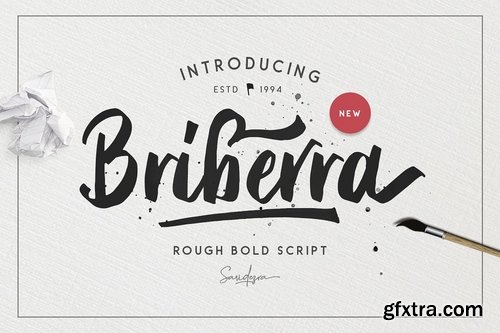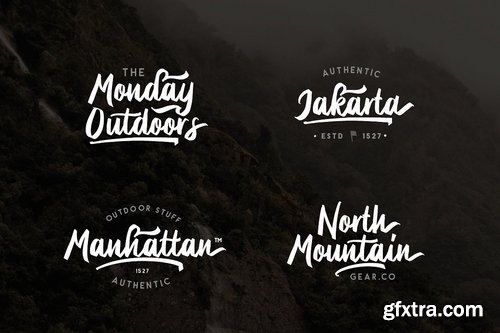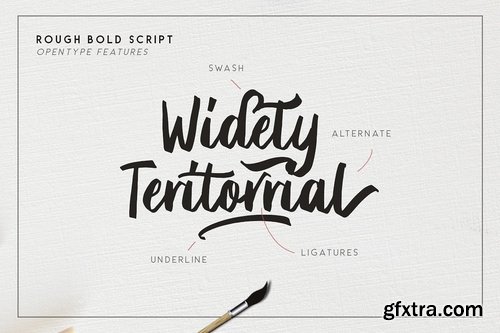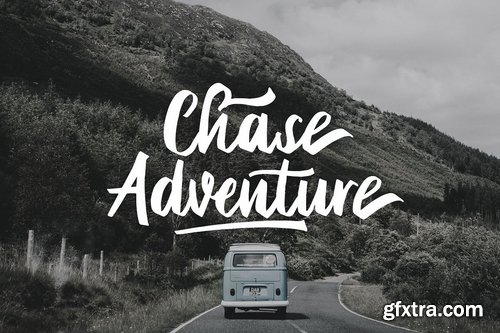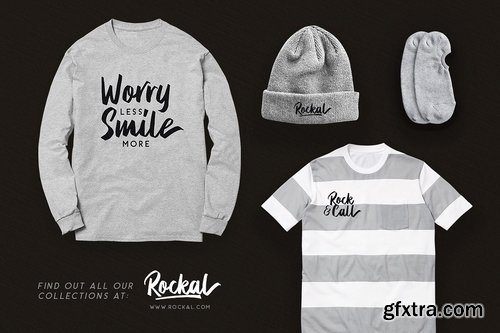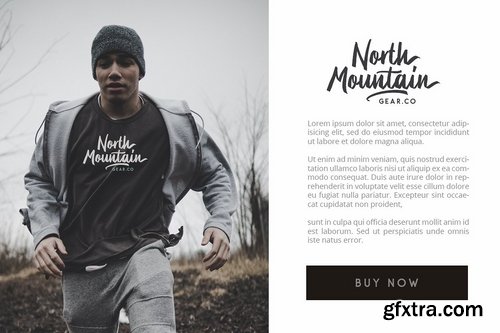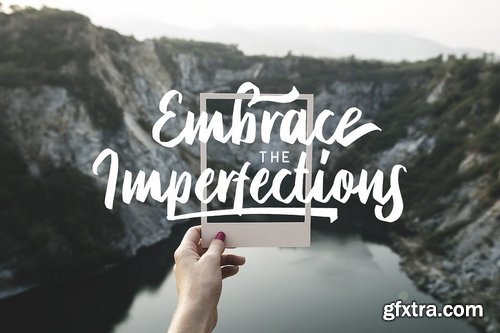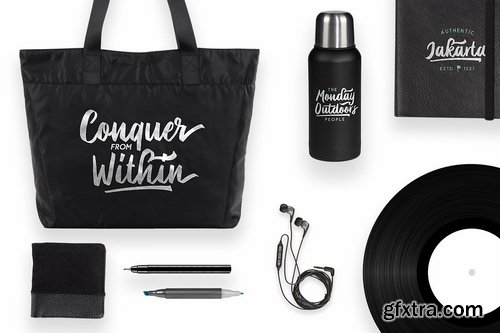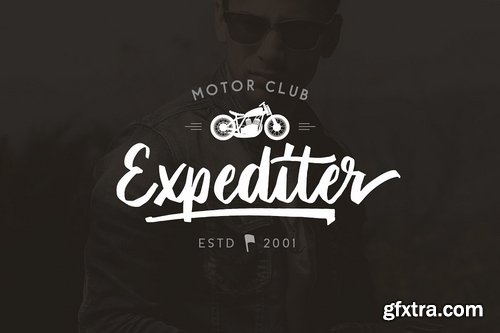
Introducing, Briberra - Realistic Rough Bold Script!
Briberra is hand lettering script font that contain stylistic alternate, swash, etc to create your own customized design. You can using this font for quotes, t-shirt design, or whatever you want. This font is support multi language. Also available in OTF and TTF. And Support PUA.